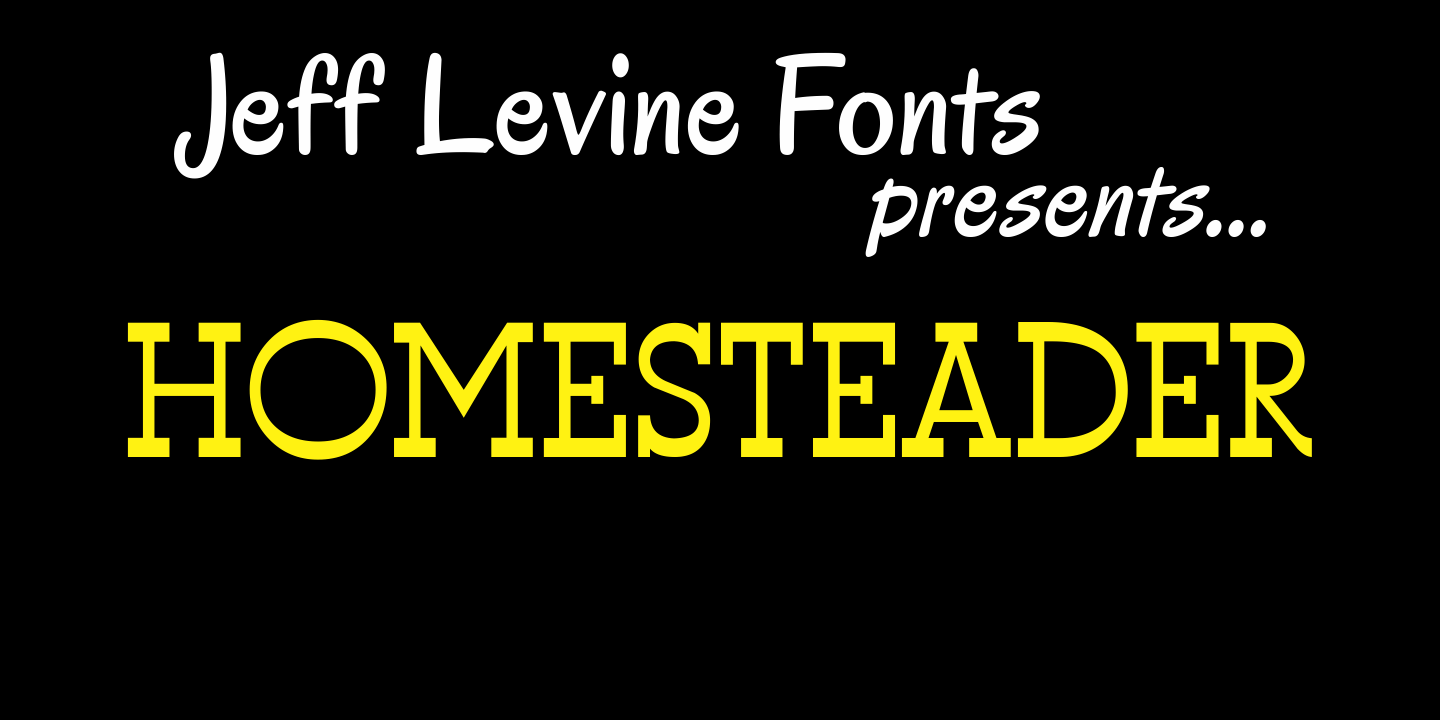
Homesteader
Jeff Levine took Crown Heights JNL [named after his childhood neighborhood in Brooklyn, NY] and gave it a make-over; transforming it into a Western-style all-caps display face called Homesteader JNL.
The point of interest being the rounded characters: C, G, O and Q - usually not as geometric in Old West typography.